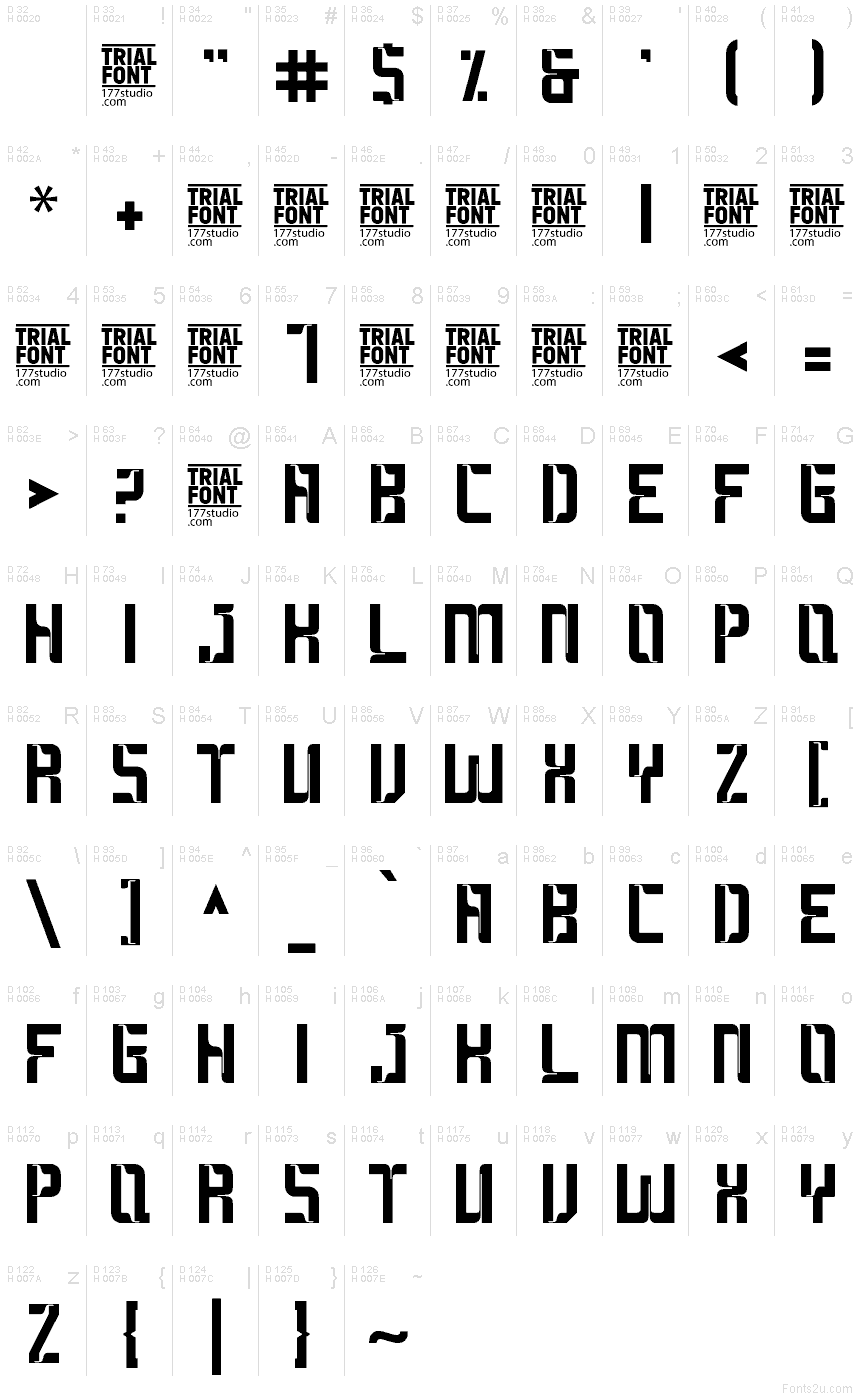
Intently Created Demo Regular
Intently Created font by 177Studio showcases tall proportions, a geometric structure, and modernist influence. This condensed font possesses a strong presence with an industrial feel that resembles architectural styles. Its appearance incorporates both pointed and rounded edges that create a bold look even with its narrow width.
Use this free display font in designs meant to grab attention in headings or titles of posters, magazines, websites, packaging as well as corporate identity projects such as those related to finance and real estate.